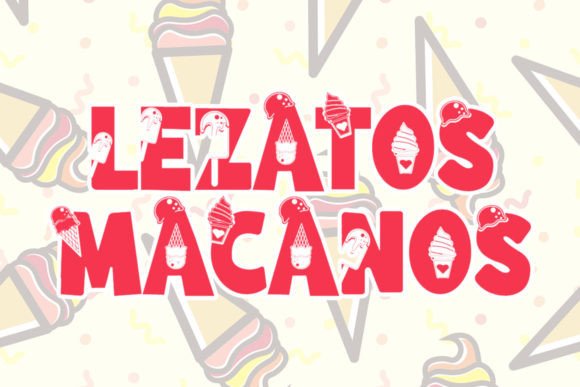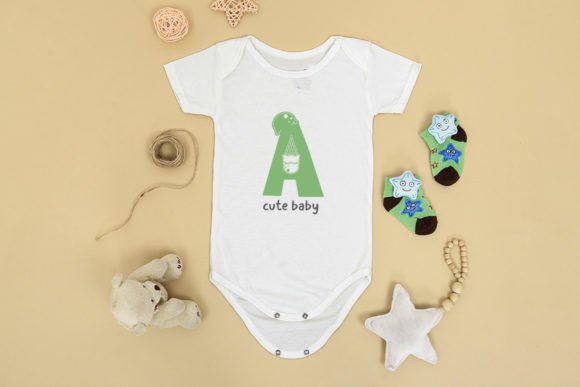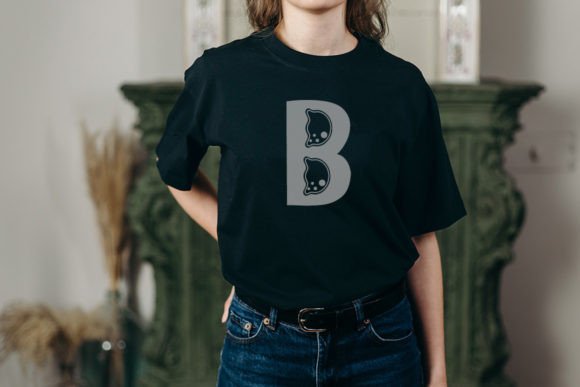
Introduction to Ice Cream Delicious Font
Who hasn’t experienced the thrill of brainstorming a new creative project, only to be stumped by the perfect font to bring it to life? It’s a moment we’ve all faced, designers and non-designers alike. But what if I told you there’s a font that can turn that blank page into a masterpiece? Enter the Ice Cream Delicious Font, a stunning and elegant typeface that’s sure to add a touch of sweetness to any design.
With its fresh and clean design, the Ice Cream Delicious Font is a high-quality resource that’s perfect for both formal and informal projects. Whether you’re working on a business logo, a social media campaign, or a personal art project, this font is sure to elevate your design and make it stand out. And the best part? It’s available for free download, making it an accessible design resource for creatives of all levels.
Key Features of Ice Cream Delicious Font
- Unique and playful design ideal for creative projects, such as food blogs, children’s books, or dessert shops.
- Includes 6 different font styles with varying weights and styles to suit diverse design needs.
- Perfect for adding a touch of whimsy and fun to your design projects, from posters to packaging and beyond.
Honest Review: Ice Cream Delicious Font
I recently came across the Ice Cream Delicious Font while searching for a design resource to elevate my next creative project. This font caught my eye with its unique, playful style, and I was excited to dive in and see what it had to offer.
- ✨ What works well: The high quality of the font is evident in its crisp lines and smooth curves, making it ideal for both digital and print design.
However, I did encounter some limitations while using the Ice Cream Delicious Font. The font selection is somewhat limited, with only a few styles available for download. Additionally, the font may not be suitable for all types of design projects, particularly those requiring a more formal or serious tone.
Overall, I’d say the Ice Cream Delicious Font is a great resource for designers looking to add a touch of whimsy and fun to their creative projects. While it may not be suitable for every project, it’s definitely worth checking out for those looking for a unique and high-quality font.
The Ice Cream Delicious Font is a versatile design resource that can be used in a variety of creative projects, including logos, social media graphics, and marketing materials. Its high-quality design makes it perfect for use in presentations, documents, and other professional materials.